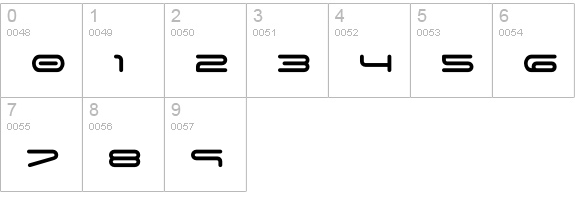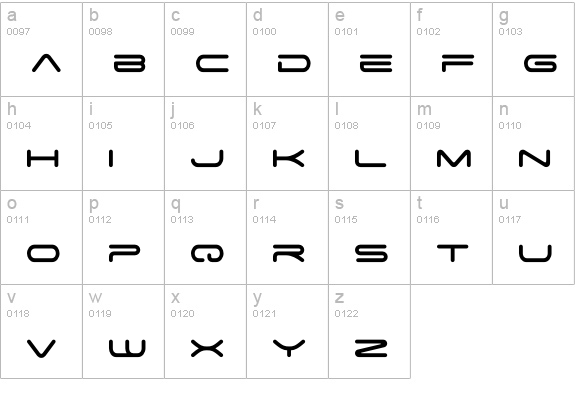
Space Age Font Details
Introducing Space Age font, a stunning and futuristic typeface that will transport your designs to another dimension. With its sleek and clean lines, this font captures the essence of the Space Age era, evoking a sense of adventure and innovation. Space Age font is not only visually captivating, but it also offers a wide range of versatility, making it suitable for various design projects. Whether you're creating a sci-fi movie poster, a futuristic technology website, or a cutting-edge logo, this font will add a touch of modernity and sophistication to your work. One of the best features of Space Age font is that it is available for free download at FontsMarket.com. Yes, you heard it right! This amazing font can be yours without spending a dime. FontsMarket.com is a trusted platform for font enthusiasts, providing a vast collection of high-quality fonts, and Space Age font is no exception. Downloading and installing Space Age font is a breeze. Once you have it in your font library, you'll be amazed at the endless possibilities it offers. Its versatility allows you to experiment with different styles, sizes, and weights, giving you complete creative freedom. Whether you want to make a bold statement or add a subtle touch of elegance, Space Age font will elevate your designs to new heights. Not only is Space Age font visually striking, but it is also highly legible, ensuring that your message is communicated effectively. Its carefully designed characters and balanced proportions make it a pleasure to read, regardless of the medium or size. So don't miss out on this incredible opportunity to enhance your design projects with the Space Age font. Head over to FontsMarket.com now and get ready to embark on a journey to the future, all while enjoying the freedom of a free font download.